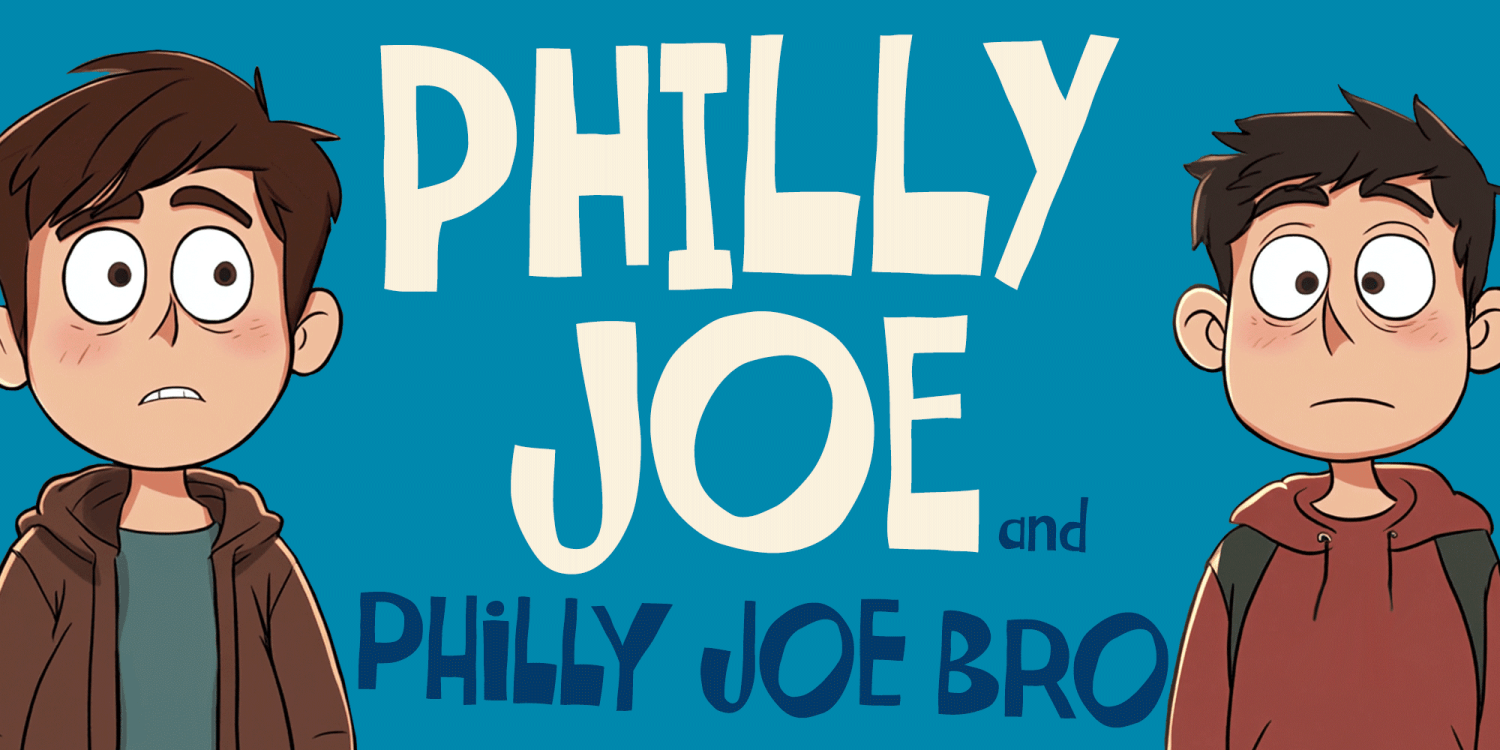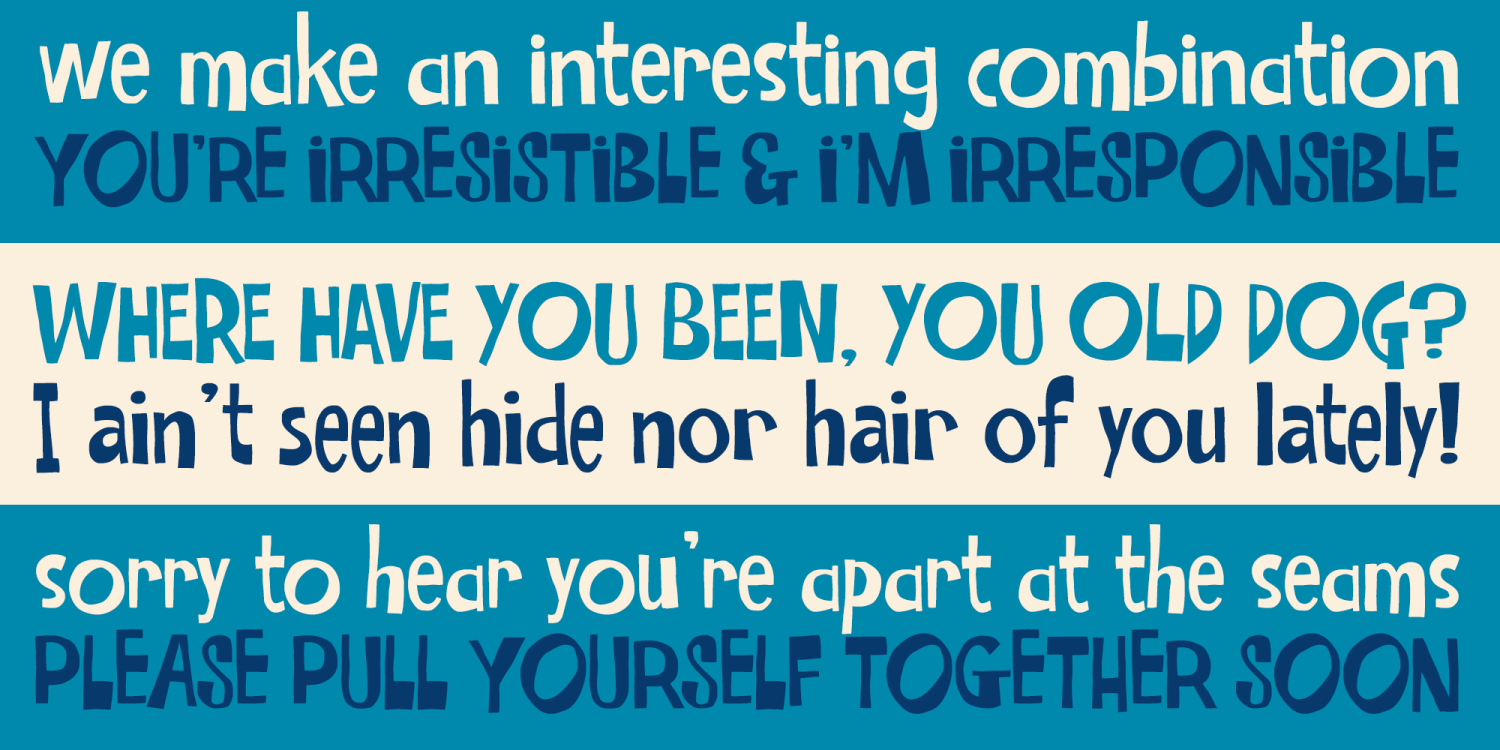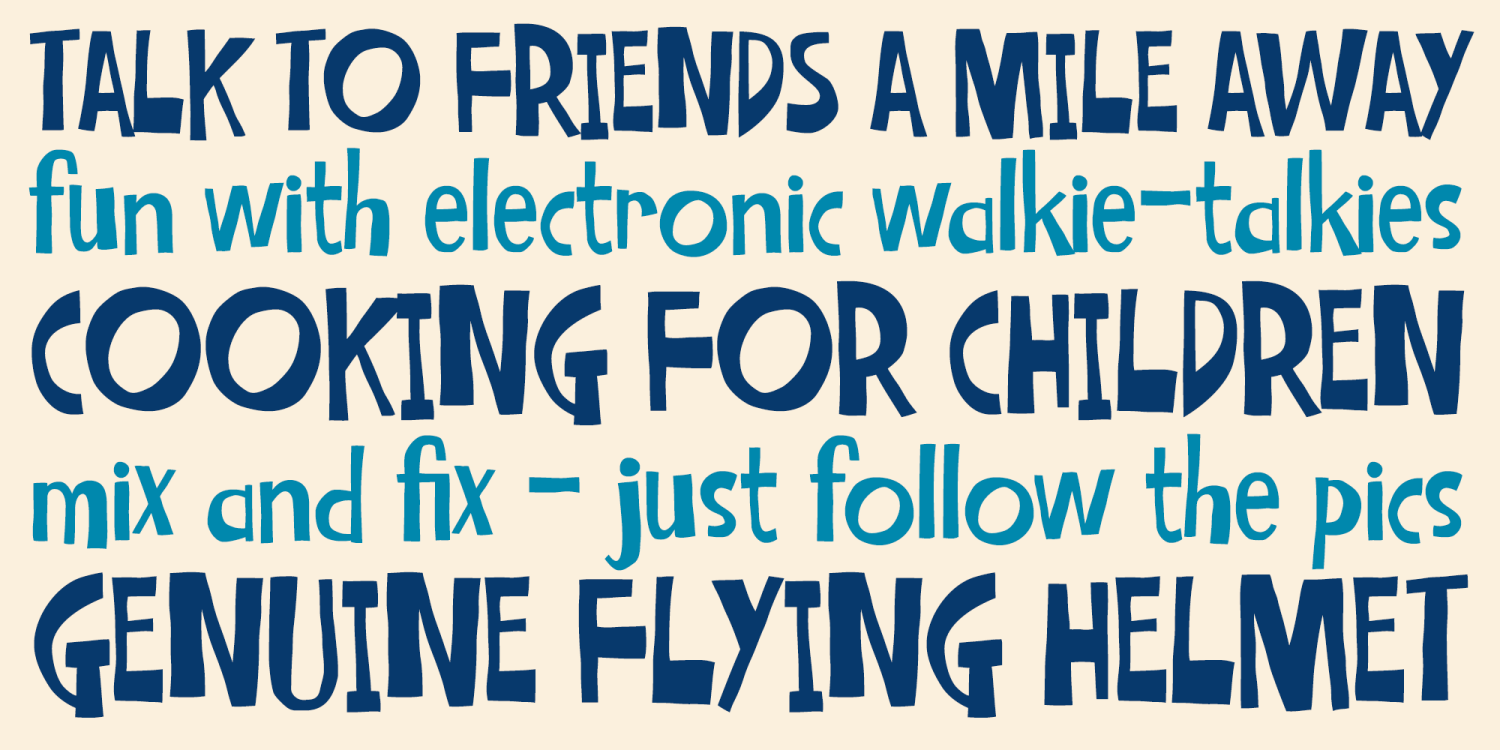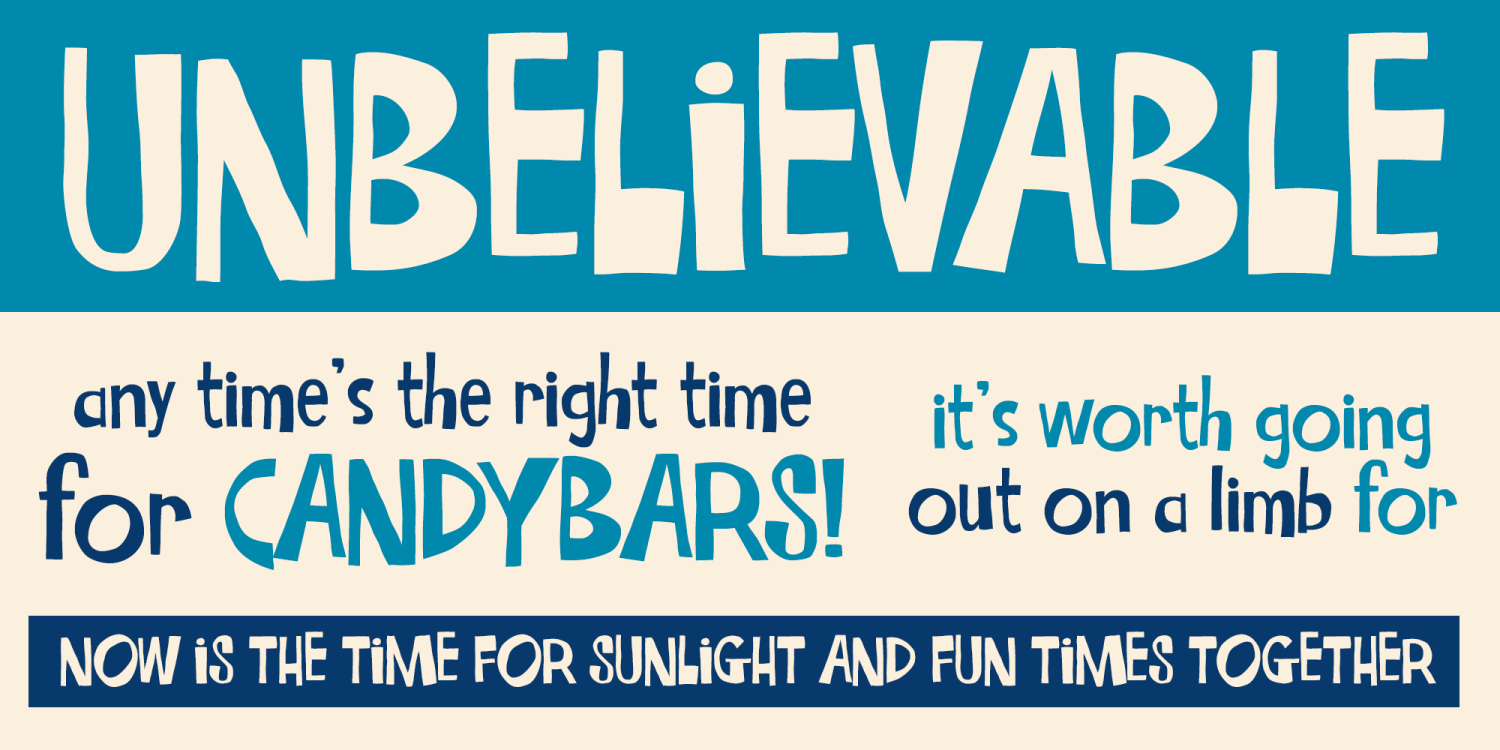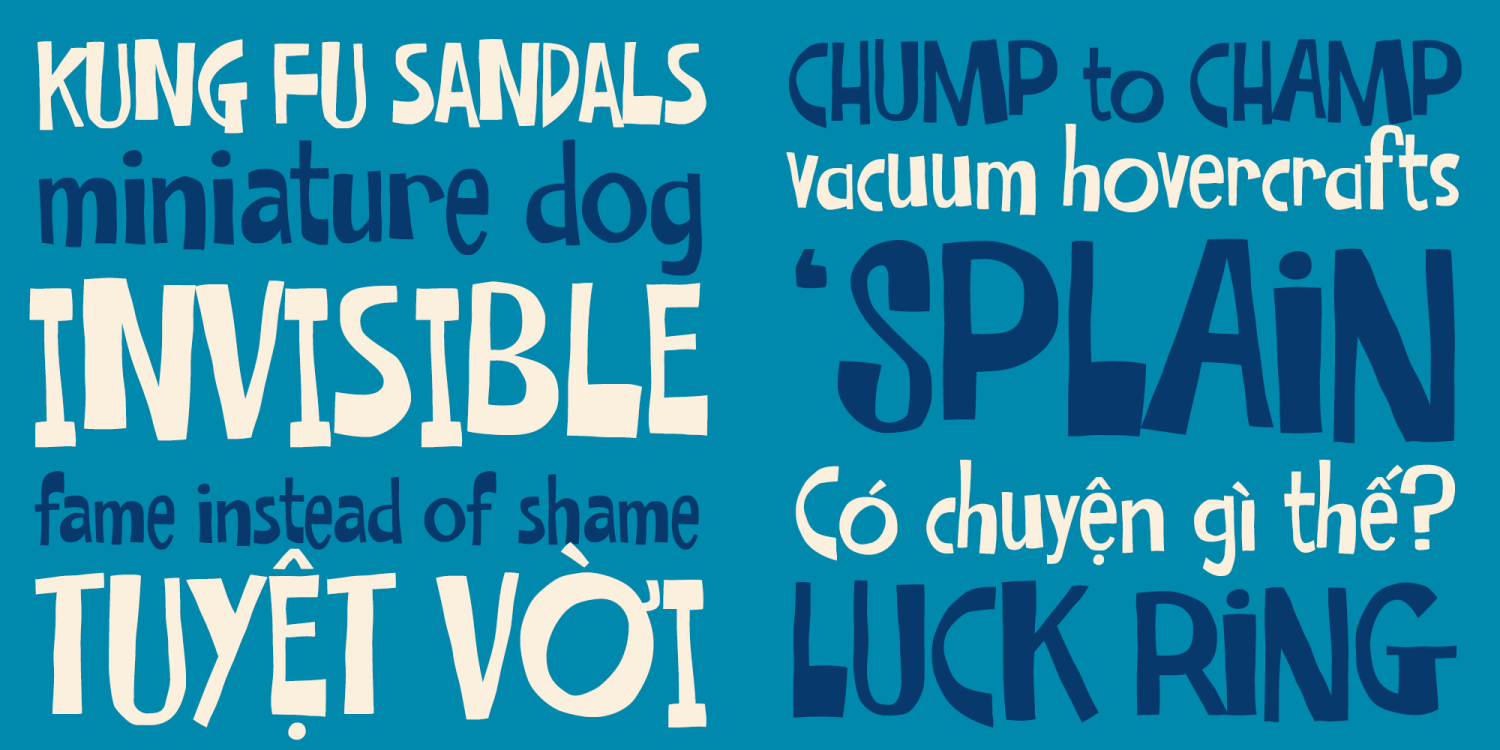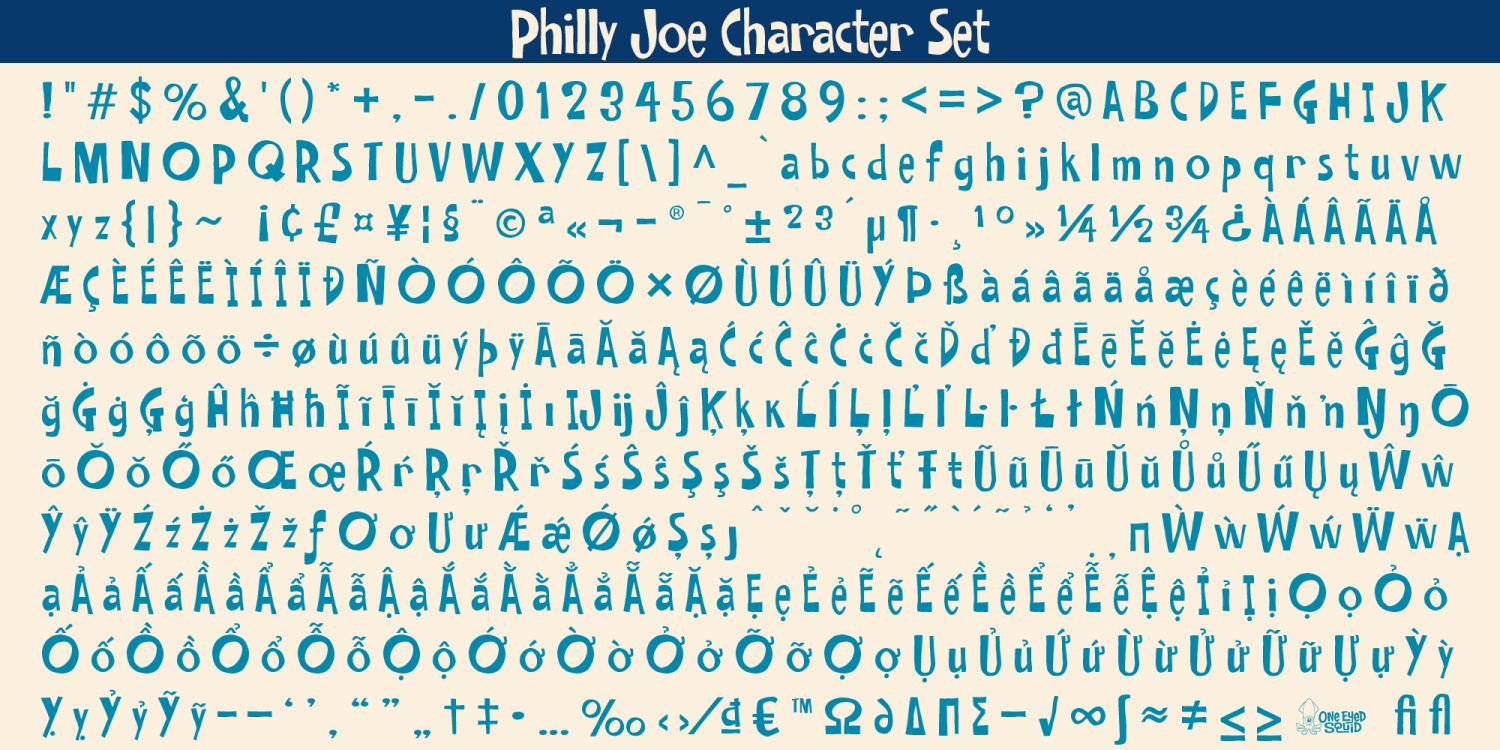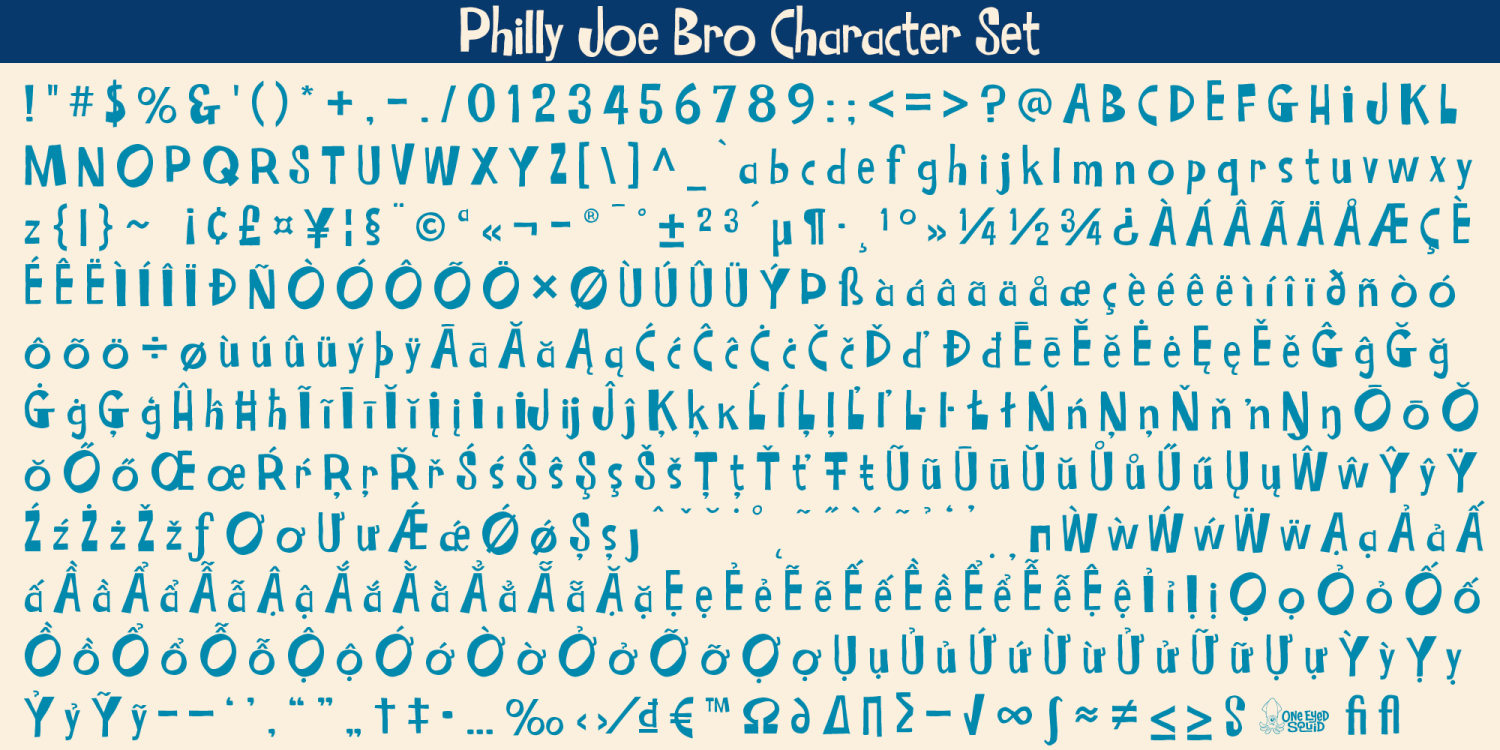
Philly Joe
Philly Joe is an offbeat hand-drawn font duo with animated energy, lovable awkwardness, and a warm, friendly personality. Consisting of Philly Joe and Philly Joe Bro, the family offers two similar but subtly different styles that work beautifully together or on their own, giving designers flexible options for playful and expressive typography. Ideal for children’s books, animated projects, greeting cards, posters, branding, packaging, social media graphics, and other creative work that benefits from a quirky, approachable handmade feel, Philly Joe brings charm, character, and lighthearted appeal to every layout. Includes extended Latin language support, including Vietnamese.
2 Styles Included
Bro
Regular
Philly Joe includes 483 glyphs.